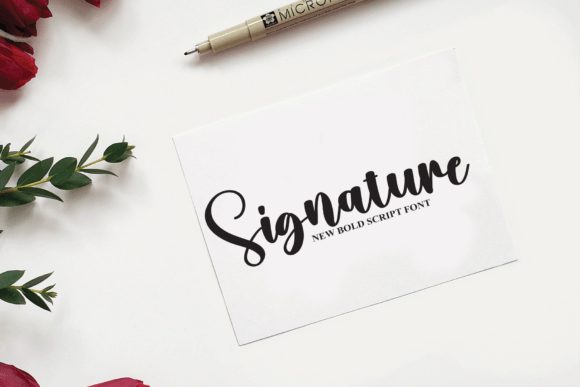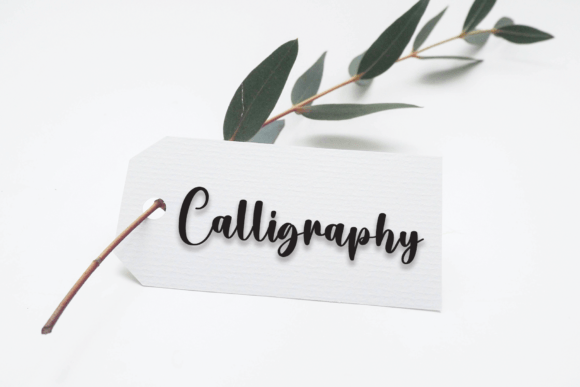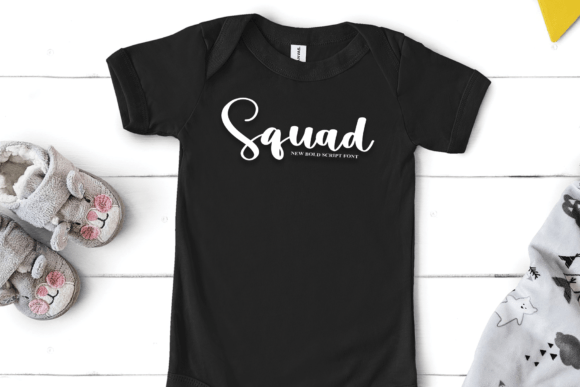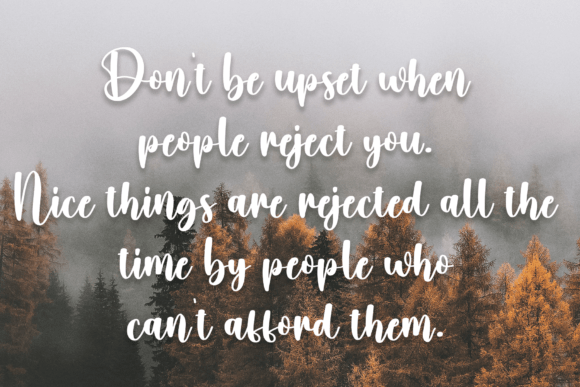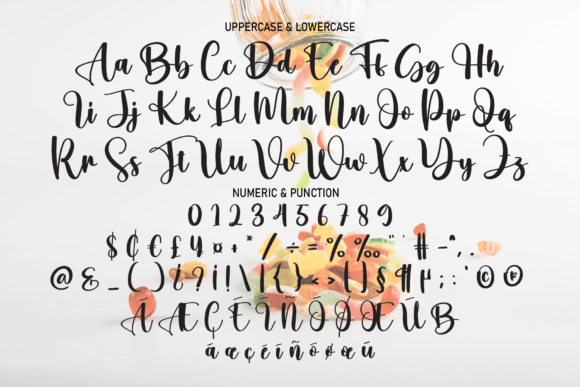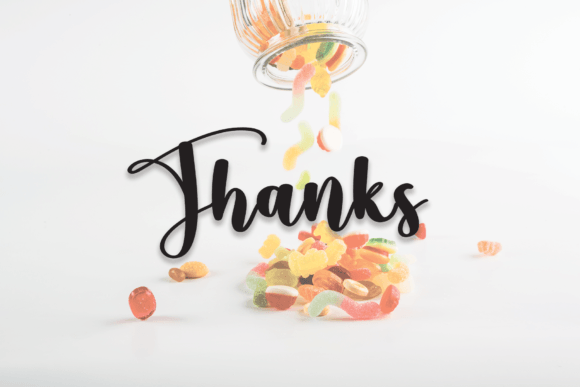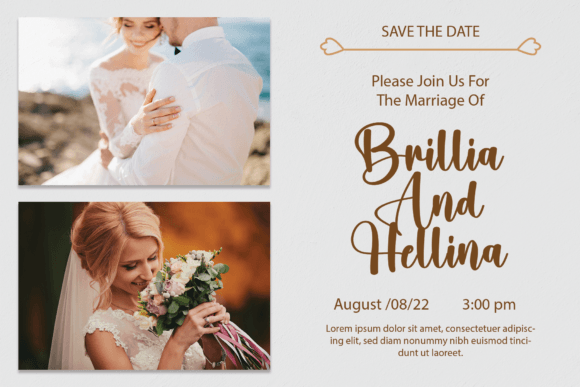
Candy Font
About Candy Font
Candy’s latest style letters present an ideal choice for a myriad of creative projects, showcasing their versatility in wall displays, wedding invitations, social media post logos, advertisements, product packaging, product designs, labels, photography, watermarks, invitations, stationery, and any project seeking the personal touch of handwritten aesthetics.
Crafted with precision, Candy’s style letters bring a unique charm to each project, ensuring a delightful blend of authenticity and creativity. Whether envisioning captivating wall displays or crafting elegant wedding invitations, the adaptability of these letters makes them seamlessly suitable for a variety of visual expressions.
In the domain of branding, Candy’s style letters shine on social media post logos and advertisements, injecting sophistication and modernity into your brand identity. When applied to product packaging and designs, the font elevates the overall visual appeal, transforming products into eye-catching and memorable experiences for consumers.
For labels and photography, the nuanced strokes and distinctive design elements of Candy’s style letters provide a timeless charm. The font seamlessly integrates into watermarks, offering a signature touch that enhances the authenticity and individuality of your images. In the context of invitations and stationery, these style letters contribute warmth and character, ensuring each piece feels personal and inviting.
In summary, Candy’s latest style letters are a versatile choice for those in search of a handwritten aesthetic for their projects. From wall displays and wedding invitations to social media logos, advertisements, product packaging, and beyond, these letters bring a unique charm that enhances the visual appeal of every creative endeavor. Embrace the sweetness and creativity of Candy’s style letters to make your projects truly stand out.